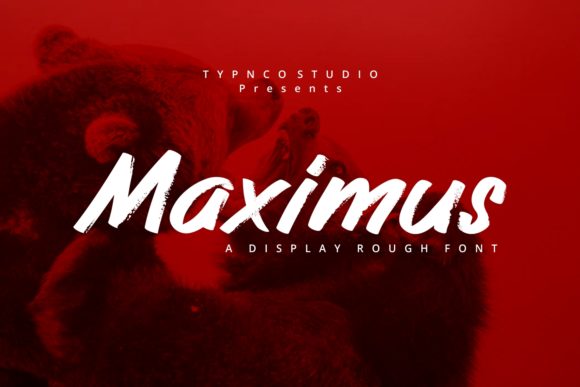
**Maximus: The Font That Will Make Your Digital Clock Shine**
In the realm of digital clocks, time is not just a measure, but an art form. And what better way to showcase the beauty of time than with a font that exudes both elegance and modernity?
Introducing Maximus, the brushed handwritten font that will transform your digital clock into a masterpiece. Created by the expert typographers at Typnco, Maximus boasts a captivating combination of beautiful and well-balanced characters, making it the perfect match for a wide range of designs.
Imagine the sleek lines of Maximus adorning your clock's display, each stroke imbued with the artistry of a master calligrapher. The carefully crafted curves and flourishes will dance before your eyes, creating a visual symphony that will leave you mesmerized.
With Maximus, you'll have the power to turn your digital clock into a statement piece, a focal point that will captivate your audience and leave a lasting impression. It's a font that will elevate your designs, adding a touch of sophistication and style to even the most mundane of timepieces.
So why settle for ordinary when you can have extraordinary? Embrace the beauty of Maximus and let your digital clock become a work of art. Its timeless appeal will endure for years to come, ensuring that your timepieces always stand out from the crowd.